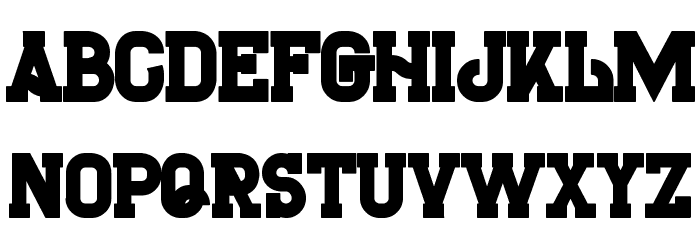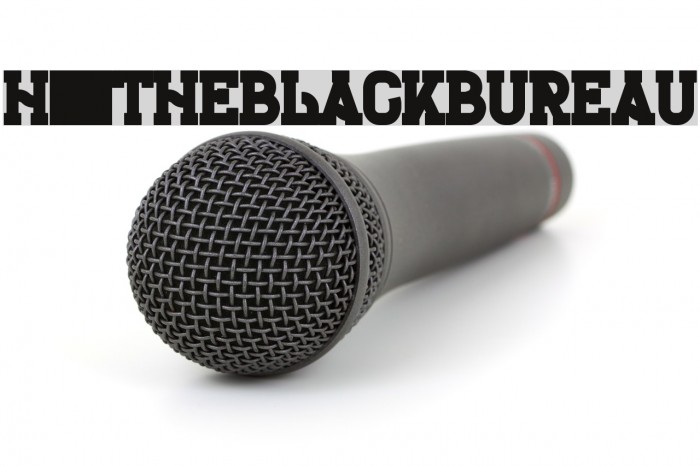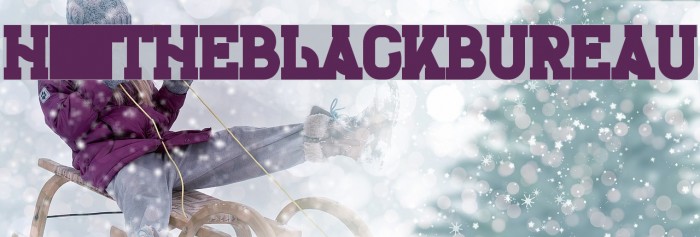
H74_TheBlackBureau Font
This font features bold, blocky characters with a strong presence, making it ideal for impactful designs. The uppercase letters are robust and convey a sense of authority and strength. The lowercase letters maintain the same boldness, ensuring consistency across different text cases. The numbers are equally bold, providing a uniform look throughout. Special characters are designed to match the overall aesthetic, ensuring they blend seamlessly with the rest of the font. The font's style is reminiscent of vintage typefaces, yet it carries a modern twist with its clean lines and geometric shapes. The serifs are pronounced, adding a touch of classic elegance to the otherwise contemporary design. This font is perfect for projects that require a bold statement, such as posters, headlines, and branding materials.
A bold, blocky font with a vintage yet modern aesthetic, ideal for impactful designs.
- Proposed Projects: Posters, headlines, branding materials, logos, and any project requiring a strong visual impact.
- Category: Slab Serif
- Overall Style: Vintage, Modern